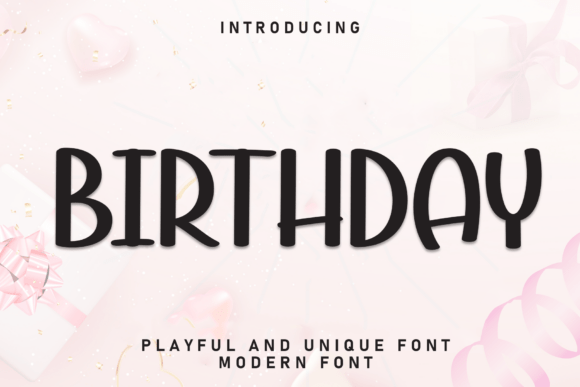
The Magic of Birthday Font: Elevating Your Designs with Whimsy and Elegance
I’ll never forget the time I was working on a wedding invitation project, and my client asked for a font that was “playful yet elegant.” I scoured the internet, tried out countless fonts, but nothing seemed quite right. That was until I stumbled upon Birthday Font. This lovable, whimsically handwritten display font has been a game-changer for me, and I’m excited to share its charm with you.
I’ve had the pleasure of working with Birthday Font on several projects, and here’s what I think:
• ✨ Unique Character: Birthday Font has a distinct, charming personality that adds a touch of whimsy to any design.
• ✅ Elegant yet Playful: This font strikes the perfect balance between elegance and playfulness, making it suitable for a wide range of projects.
• 💫 Versatile: From wedding invites to greeting cards, Birthday Font can be used in various designs that require a light-hearted touch.
While Birthday Font is a stunning font, it’s not without its quirks:
• 🤔 Limited Use in Body Text: Due to its decorative nature, Birthday Font is best suited for headings and titles. It may not be the most readable choice for body text.
• ⚠️ Glyph Limitations: Some users have reported that the font’s glyph library is not as extensive as they would like. However, this doesn’t detract from its overall charm.
Exploring Alternatives: Similar Fonts to Birthday Font
If you love Birthday Font, you might also enjoy these similar fonts:
• Lobster: A elegant, cursive script font perfect for formal events and sophisticated designs.
• Pacifico: A beautiful, handwritten font with a relaxed, beachy vibe ideal for casual designs.
• Great Vibes: A stylish, handwritten font with a mix of elegance and playfulness, suitable for a wide range of projects.
• Carolyna Pro: A lovely, script font with a feminine touch, great for wedding invites, greeting cards, and more.
The Story Behind Birthday Font: Designer Inspiration
While the true story behind Birthday Font’s creation is unknown, it’s easy to imagine that the designer was inspired by the joy and celebration of special occasions. Perhaps they wanted to create a font that would bring a smile to people’s faces and add a touch of whimsy to their designs. Whatever the inspiration, Birthday Font has undoubtedly become a beloved font among designers and crafters.
What type of projects is Birthday Font best suited for? Birthday Font is perfect for designs that require a playful yet elegant touch, such as wedding invites, greeting cards, and other celebratory materials.
Is Birthday Font available in multiple languages? Birthday Font may not support all languages, but it does include a range of glyphs and OpenType features that can be used to create beautiful text.